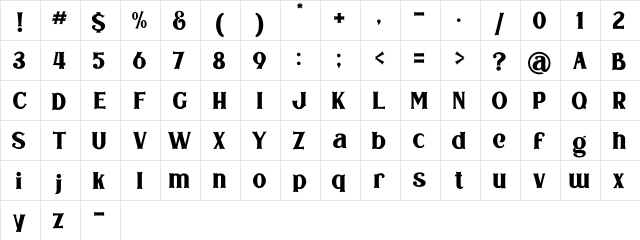
Bodbug Regular
| Designer | Muhammad Romzul Khoir |
Design Context for Bodbug Typeface
Bodbug is a composed and adaptable typeface that performs quietly and consistently across a wide range of design contexts.